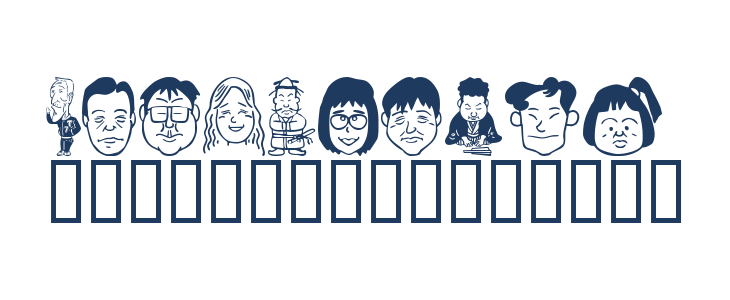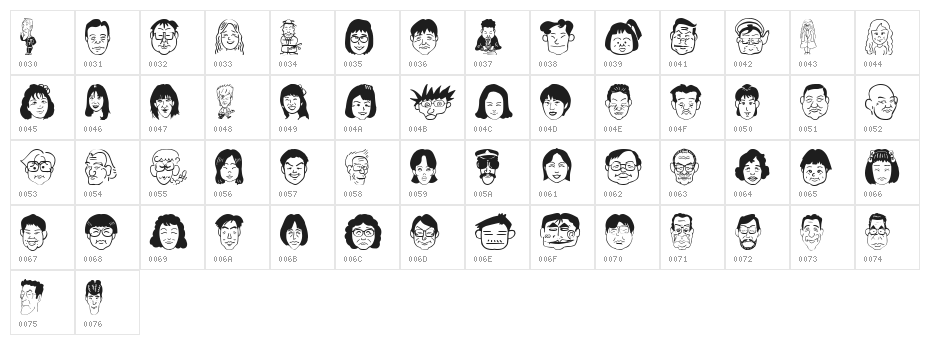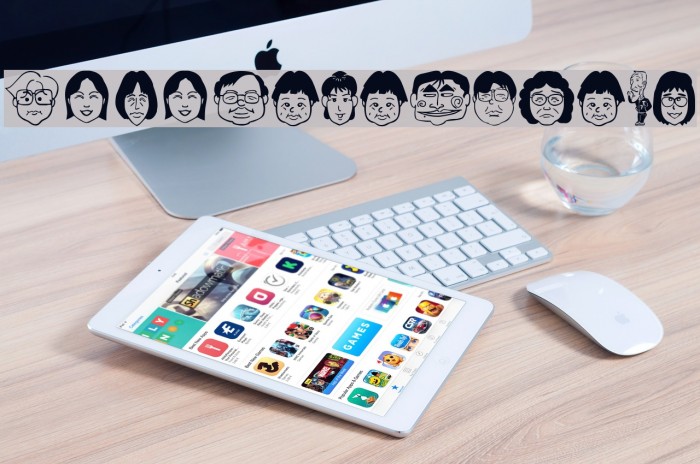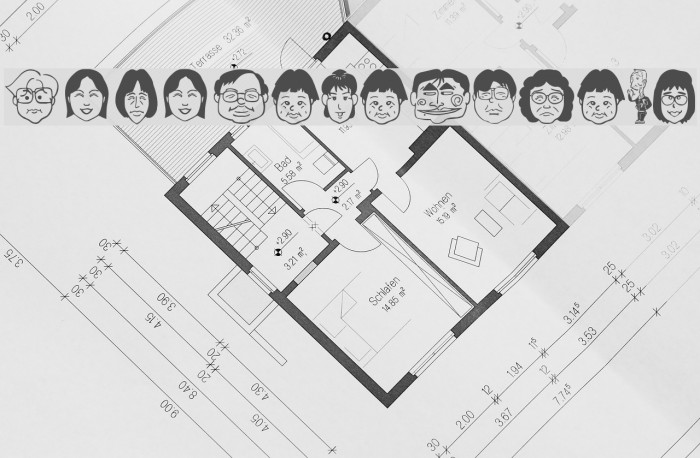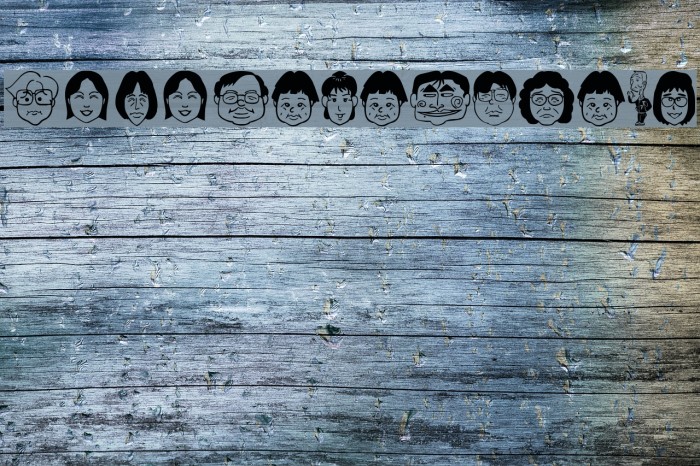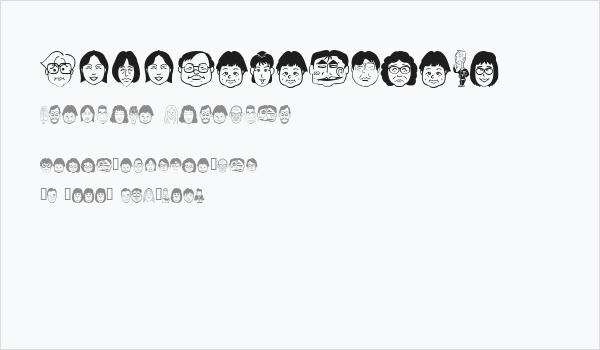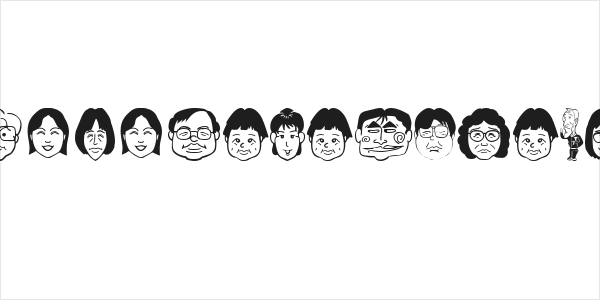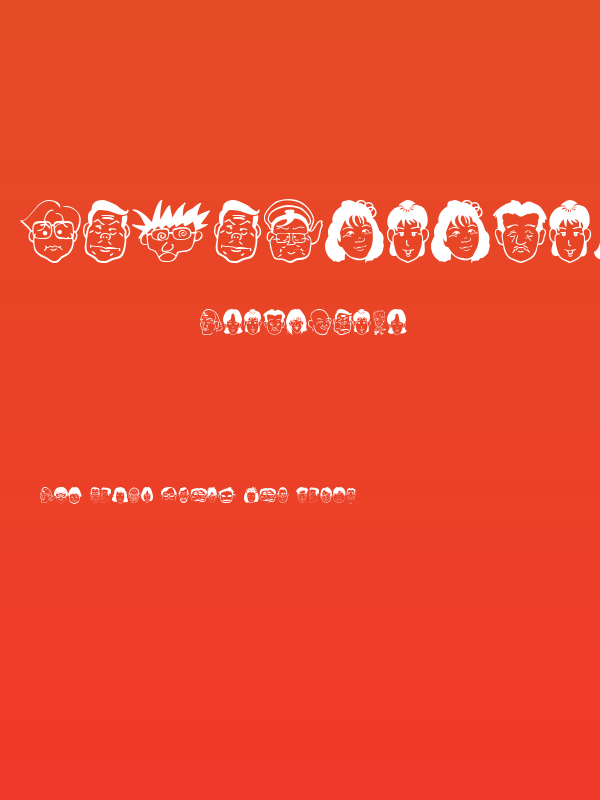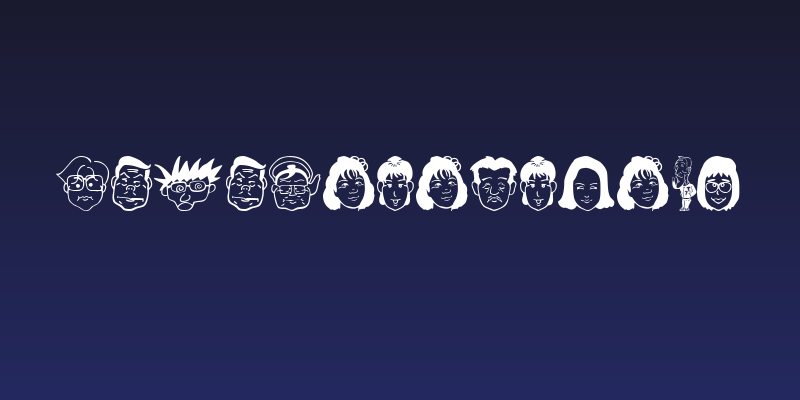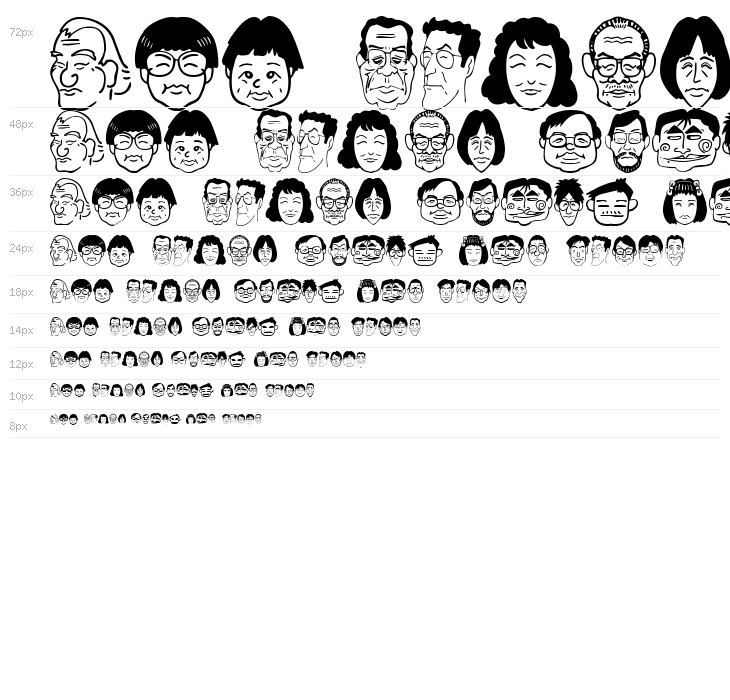
SakabePeople05 Font
SakabePeople05 Description
A decorative dingbat font featuring a variety of hand-drawn cartoon faces and caricatures, each glyph representing a unique character with distinct expressions and styles. The illustrations are outlined in black with varying levels of detail, capturing a playful and whimsical aesthetic.
| Overall Style | Decorative, Playful, Whimsical |
| Use Case | Illustrative elements, icons, decorative accents, informal projects. |
| Proposed Projects | ChildrenΓ’β¬β’s books, comic strips, playful branding, party invitations, educational materials, character design mockups. |